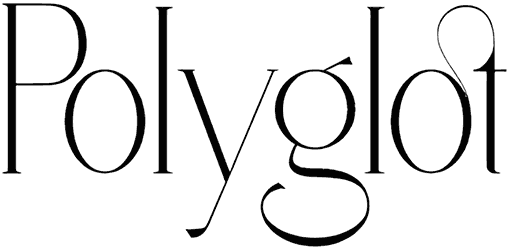
Polyglot Font
A simple serif font with classic appeal, Polyglot works well in print, on the web, and in marketing materials. Using its elegant and flexible ligature serif font on your next business card, brochure, or other formal document is a surefire way to make a good impression.